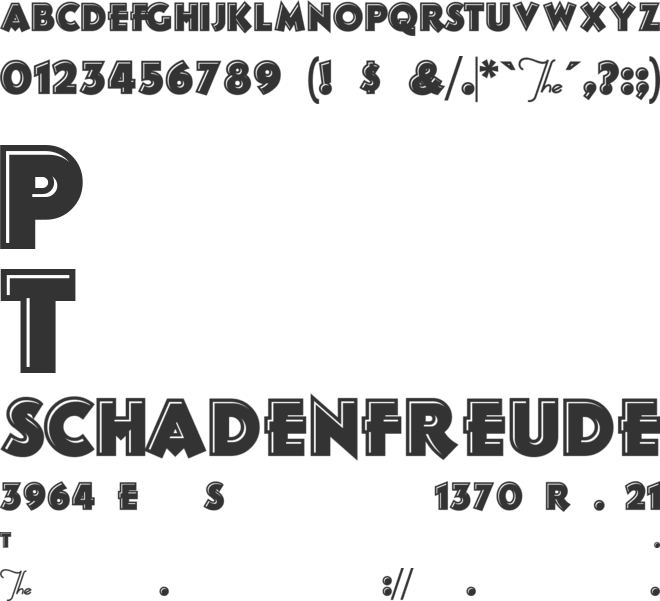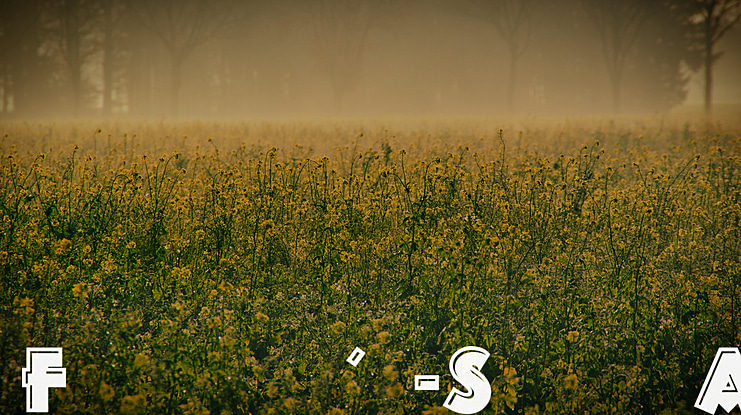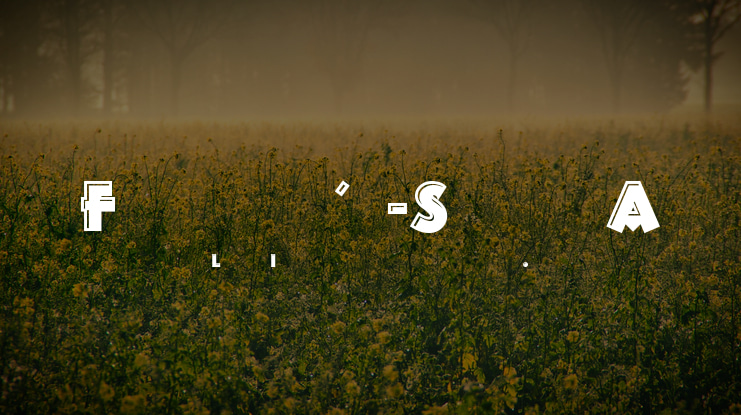
Franken's-SteinA Font
Inspiration is where you find it — for this font, the inspiration came from a bottle of Beck’s Beer: the unusual incised treatment turns an otherwise plain-vanilla font into something unique and visually interesting. The name is a tribute to the inspiration for the font, my favorite old-time movie monster and the creator of Stuart Smalley (not a licensed therapist, but a member of several twelve-step programs).